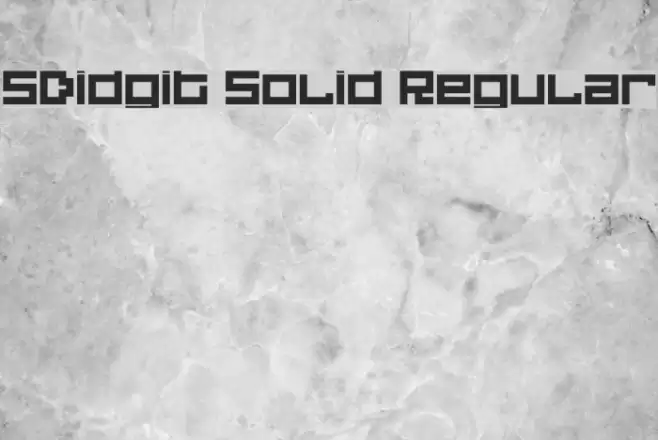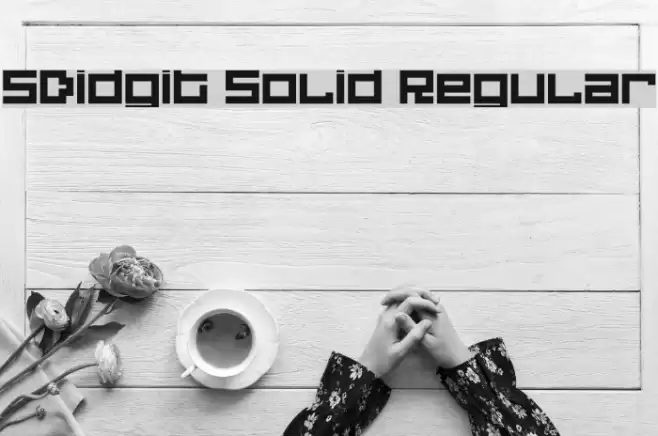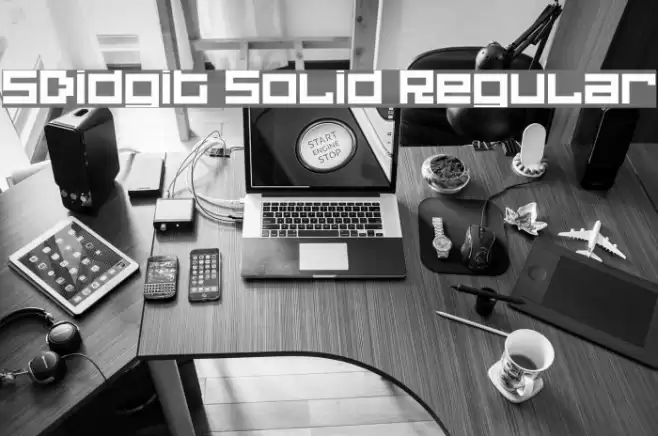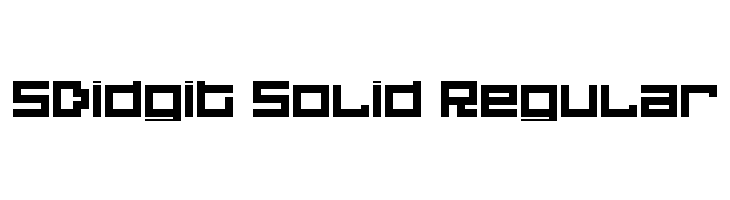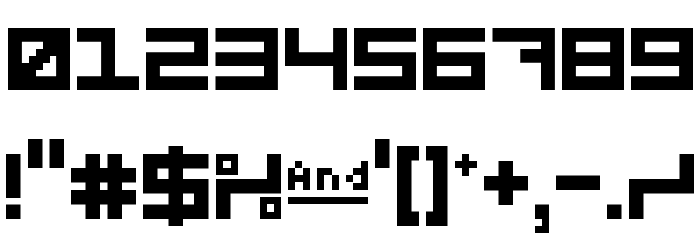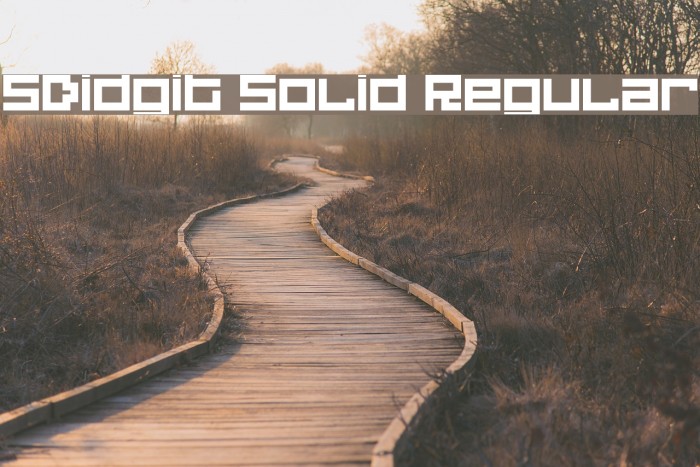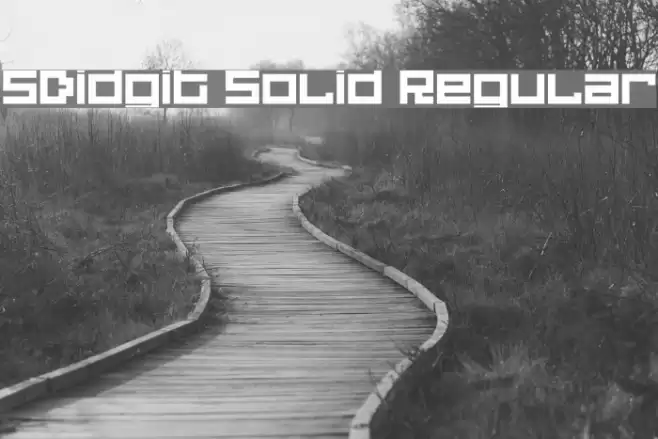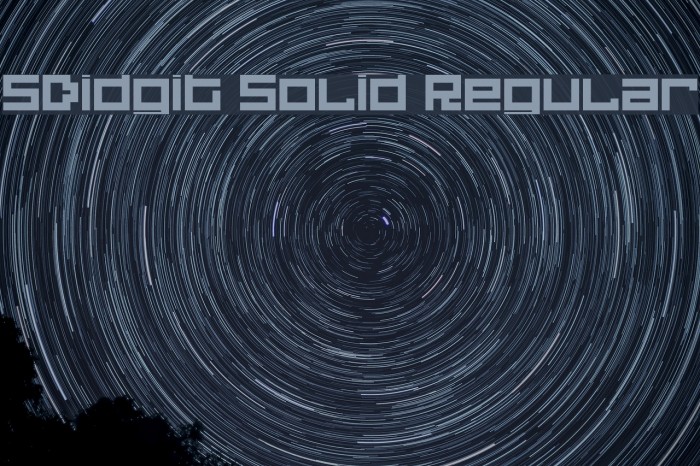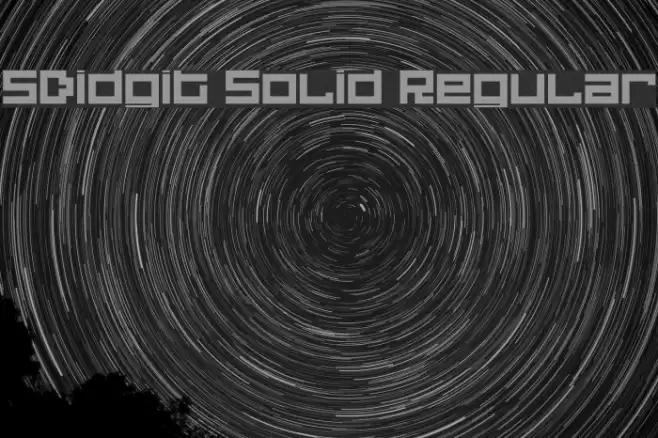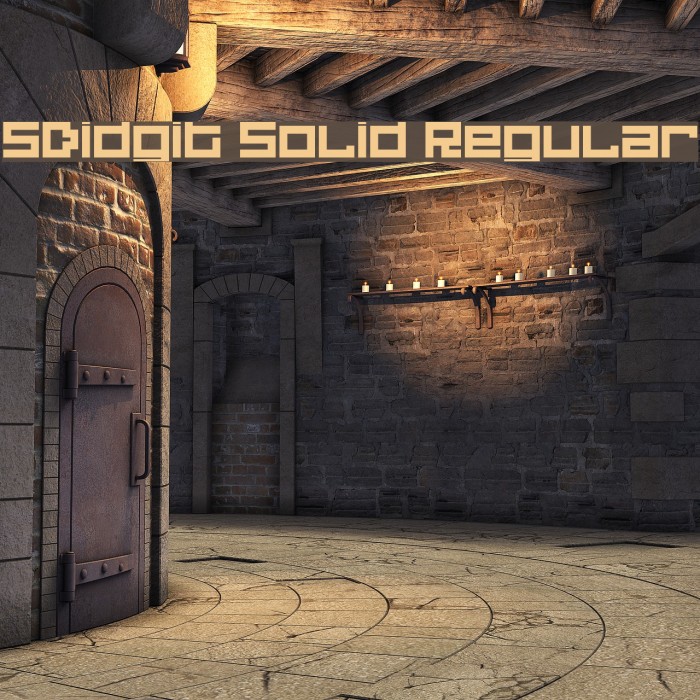
5Didgit Solid Regular Font
5Didgit Solid Regular Description
This font features a bold, geometric design with a distinctly digital aesthetic. Each character is constructed with sharp, angular lines and uniform stroke widths, reminiscent of early digital displays or pixel art. The uppercase and lowercase letters maintain a consistent height, contributing to a monospaced appearance. The numerals and special characters follow the same design principles, ensuring a cohesive look across all glyphs. This font's blocky style makes it ideal for projects that require a retro or tech-inspired feel.
A bold, geometric font with a digital, pixelated style from Futuristic fonts.
- Proposed Projects: Ideal for video game design, tech branding, digital art projects, and retro-themed posters.
- Overall Style: Retro, Digital
- Use Case: Headlines, Logos, Digital displays